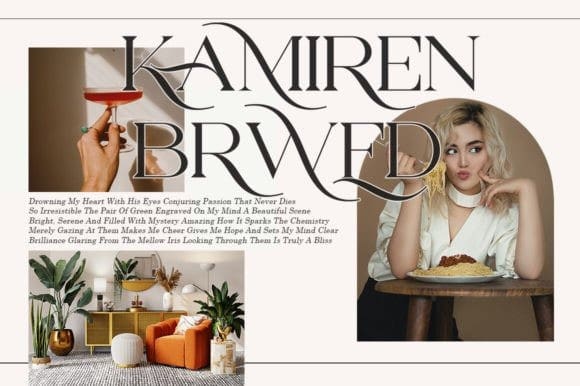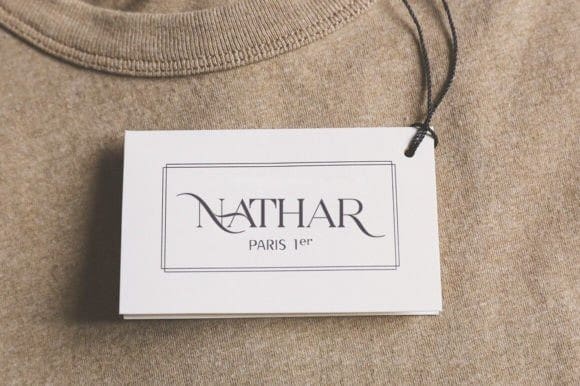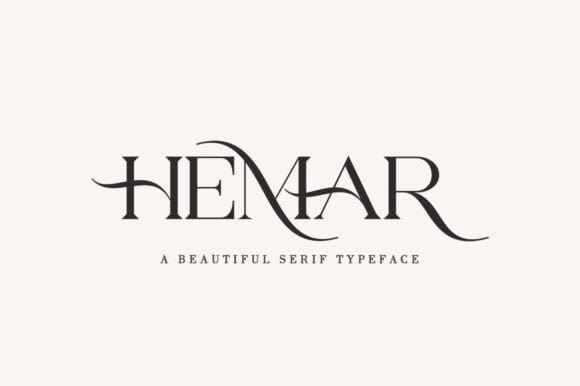
Hemar Font
Hemar Font is a serif font packaged in a modern and classy style, complete with access to your OpenType features to access a large selection of alternate letters and ligatures, the choice of letters you like from variations of uppercase and lowercase letters to get a display luxurious and elegant.
Hemar Font is perfectly made to be applied especially in logos, and the other various formal forms such as invitations, labels, logos, magazine headers, books, greeting/wedding cards, Clothing Branding, product packaging, fashion, makeup, quotes, stationery, novels, cutting, labels or any type of advertising purpose.